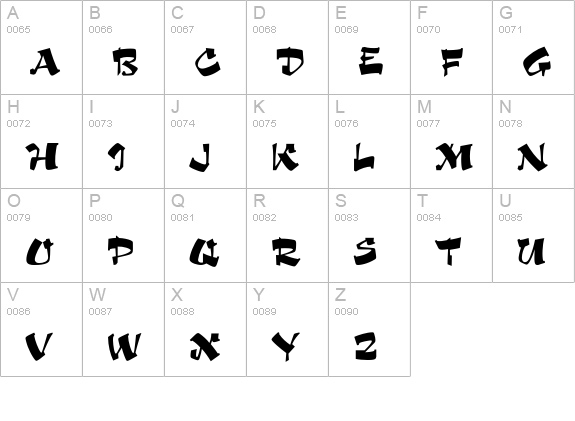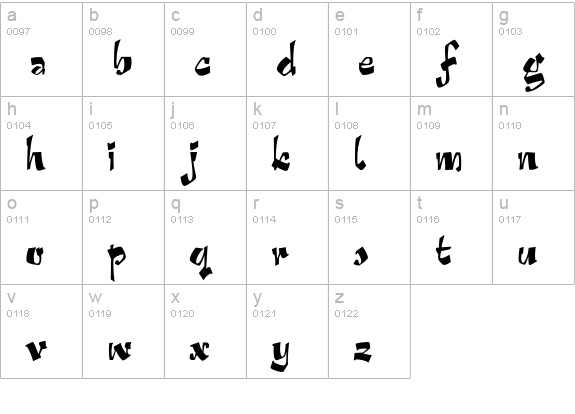
Arriba Std Font Details
Arriba Std is a modern and stylish font that exudes elegance and sophistication. Its sleek lines and contemporary design make it perfect for a wide range of design projects, from branding to editorial design. This versatile font is sure to make your text stand out and captivate your audience. What's even better is that Arriba Std is available for free download at FontsMarket.com. This means you can easily access this stunning font and use it in your projects without any cost. So why wait? Download Arriba Std now and elevate your designs to the next level.